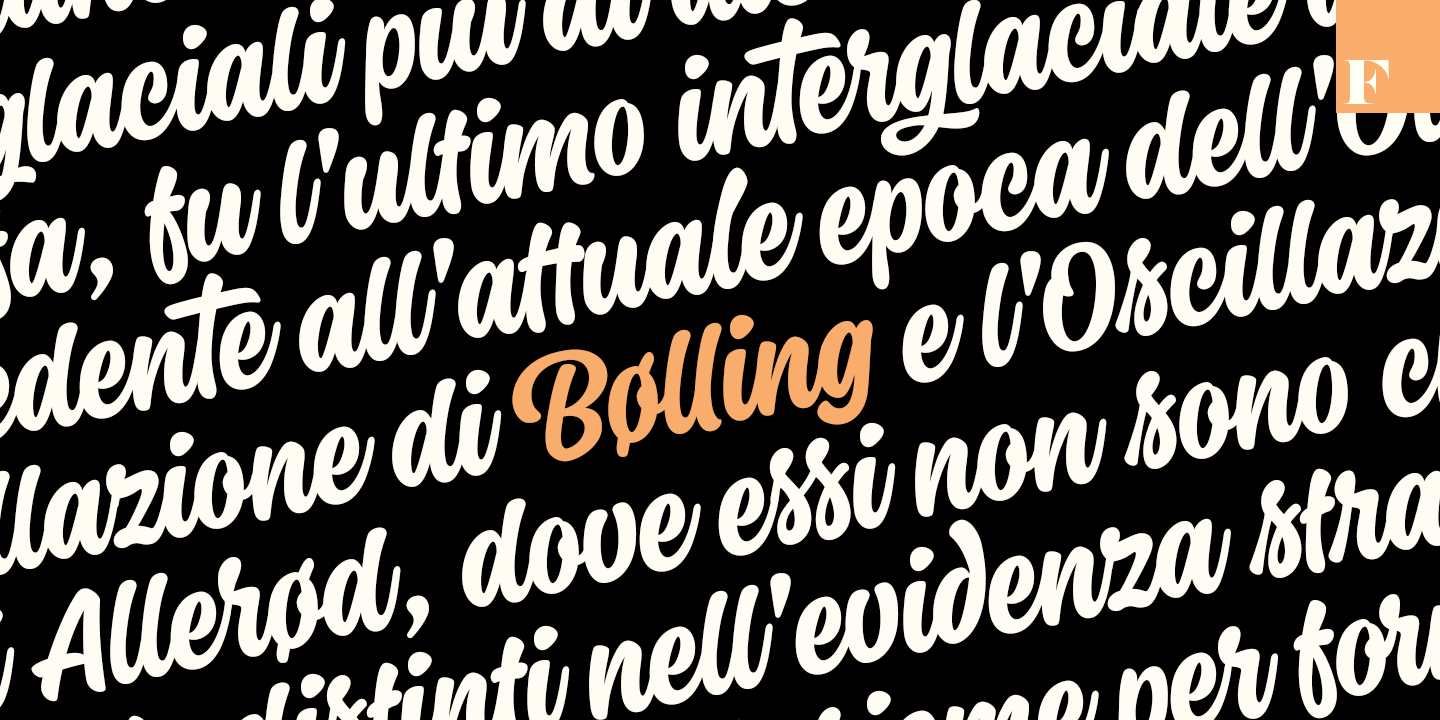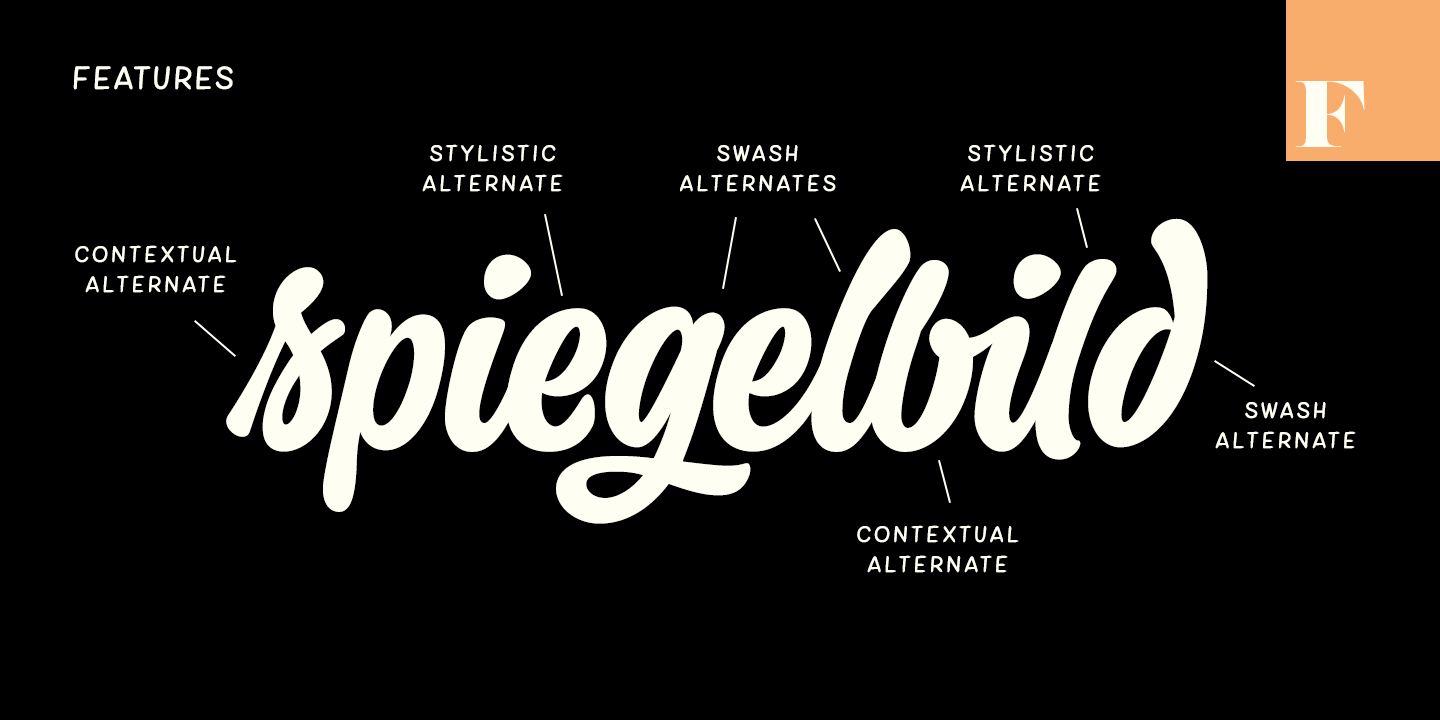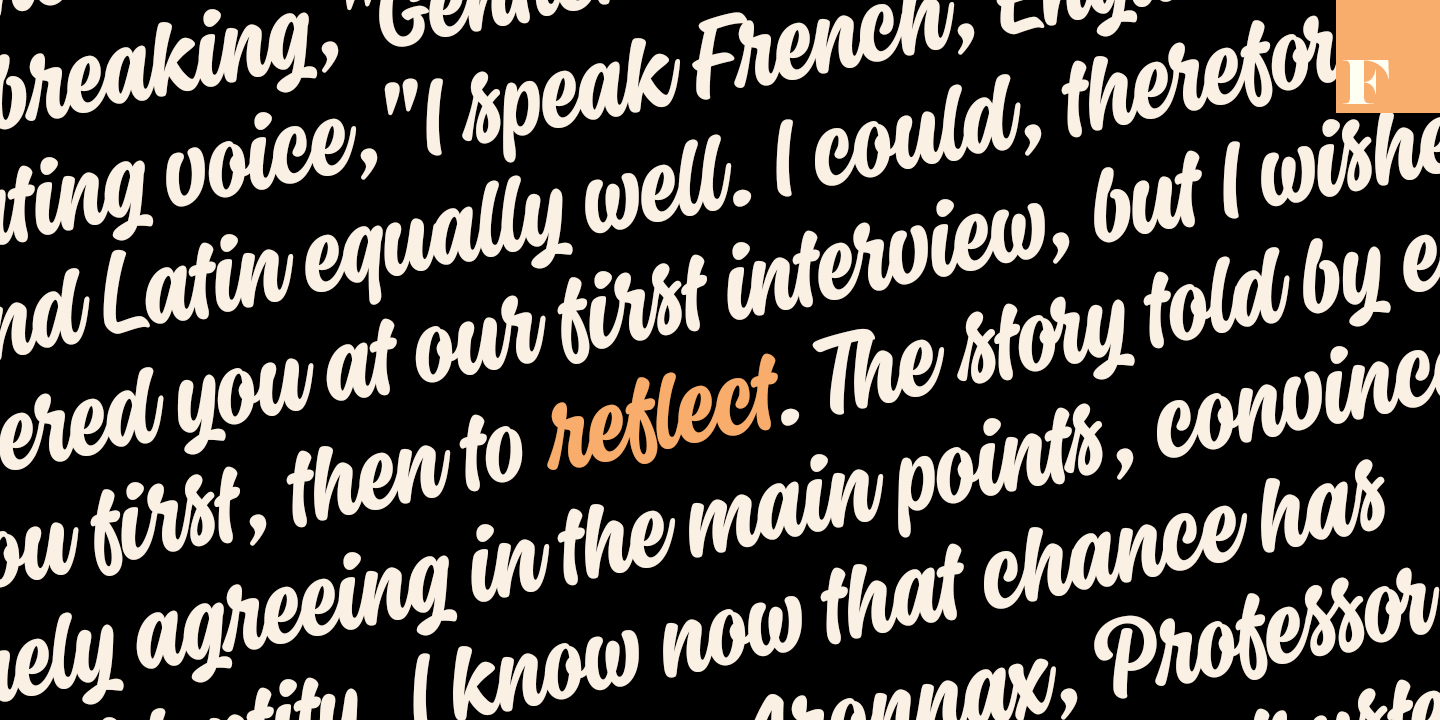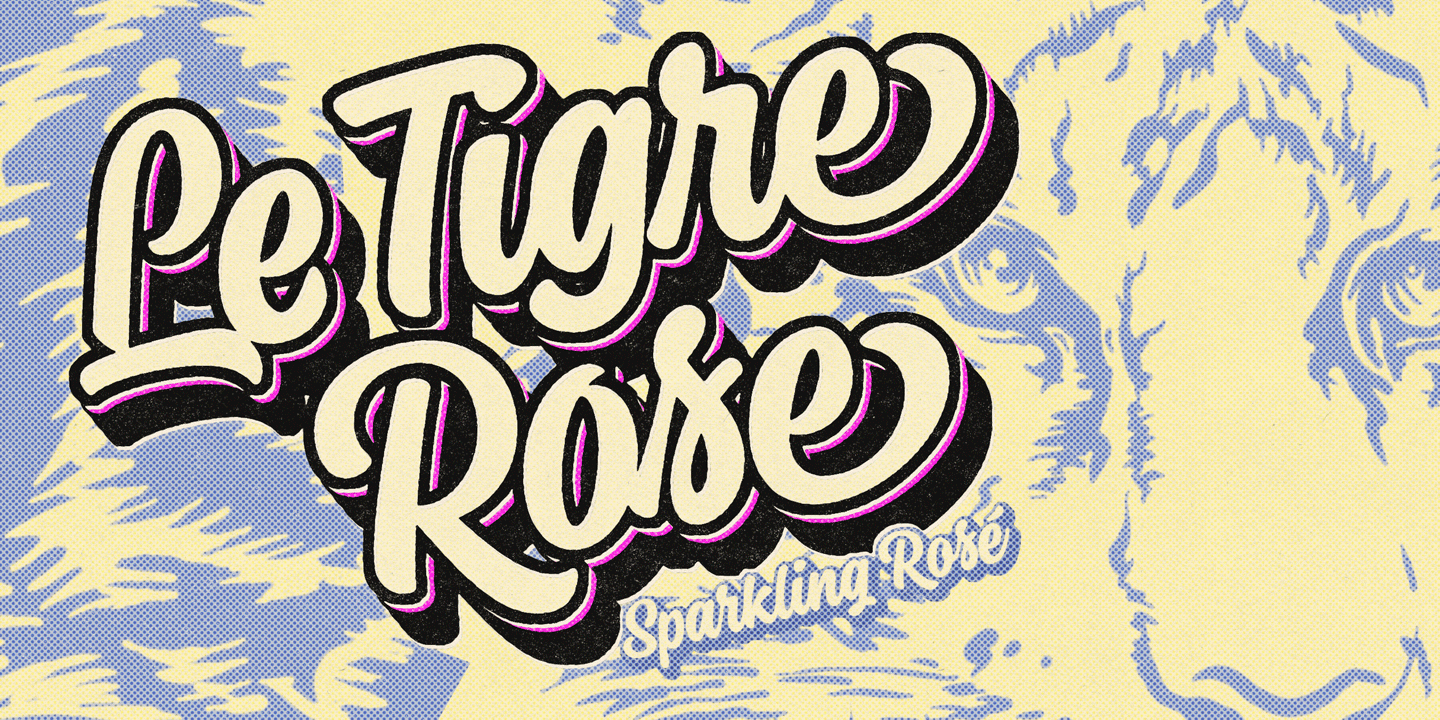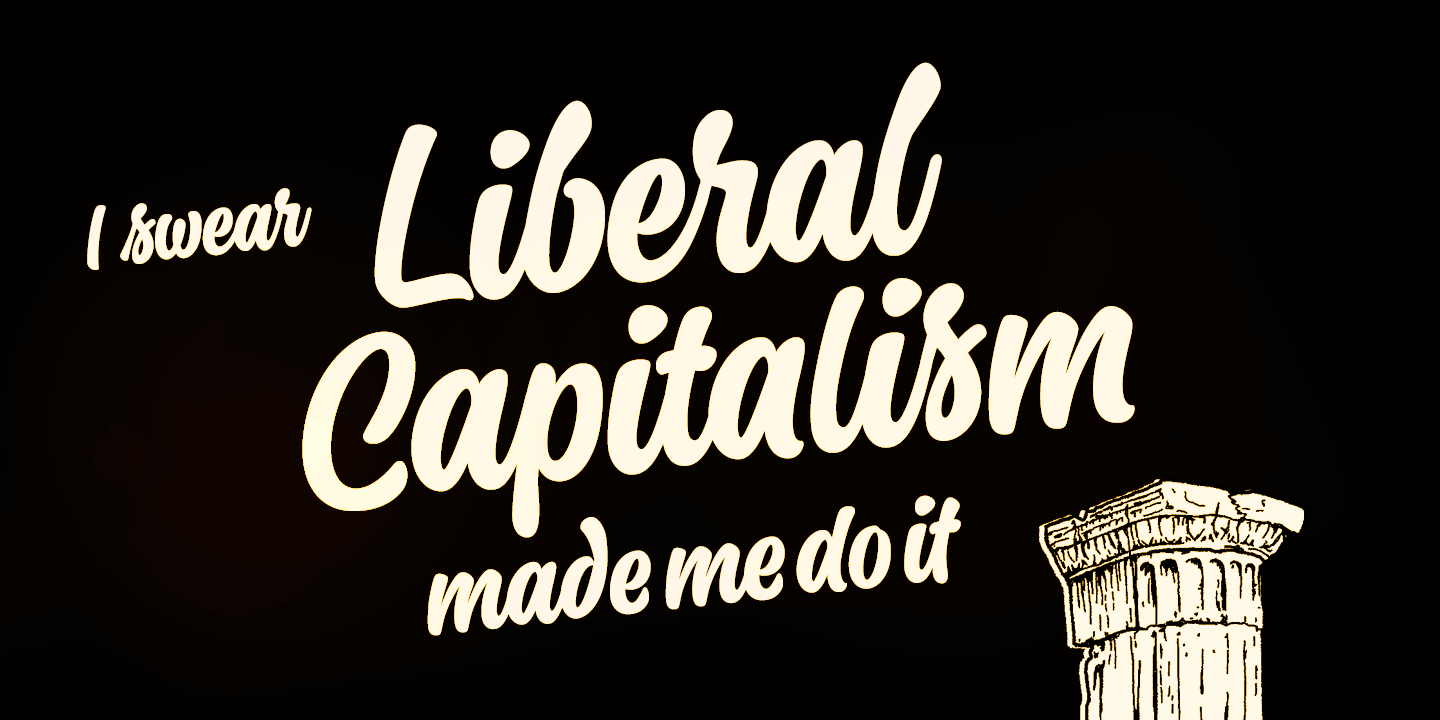
About Leonard
Leonard is a bold brush script with strong character. Leonard has low contrast, smooth letterforms and high x-height. It\’s great for single words or longer text passages; use it in logos or headlines, in packaging, posters, illustrations or product design.…